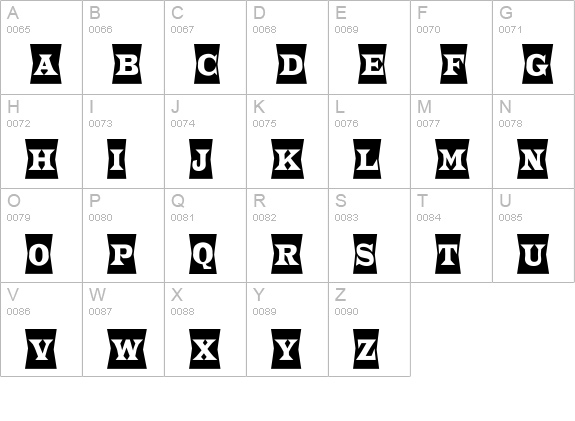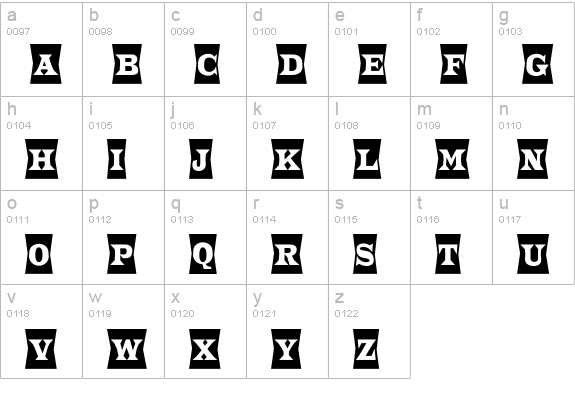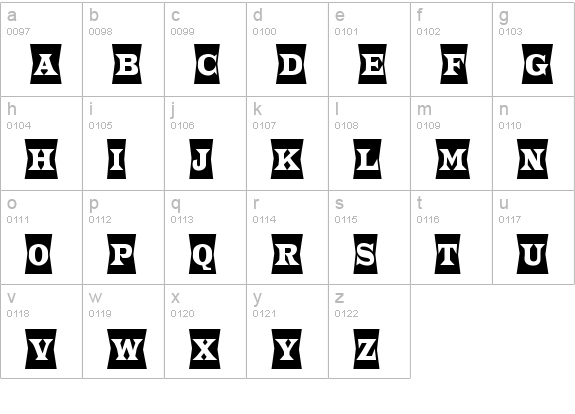
a_TrianglerCmFld Font Details
Introducing TrianglerCmFld font, a stylish and modern typeface perfect for adding a touch of sophistication to your designs. This font features clean lines and sharp angles, giving it a sleek and contemporary look. Whether you're designing a logo, poster, or website, TrianglerCmFld will make your text stand out with its unique geometric shapes. The best part? TrianglerCmFld is available for free download at FontsMarket.com. You can easily access this font and use it in your personal or commercial projects without any restrictions. Don't miss out on this opportunity to elevate your designs with the bold and eye-catching TrianglerCmFld font. Download it today and let your creativity soar!